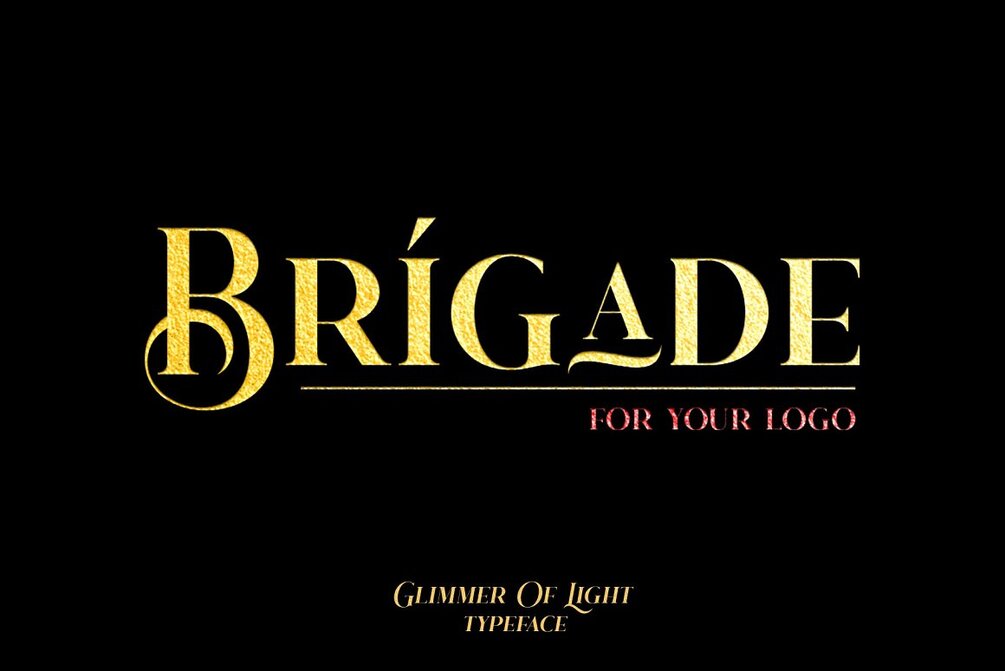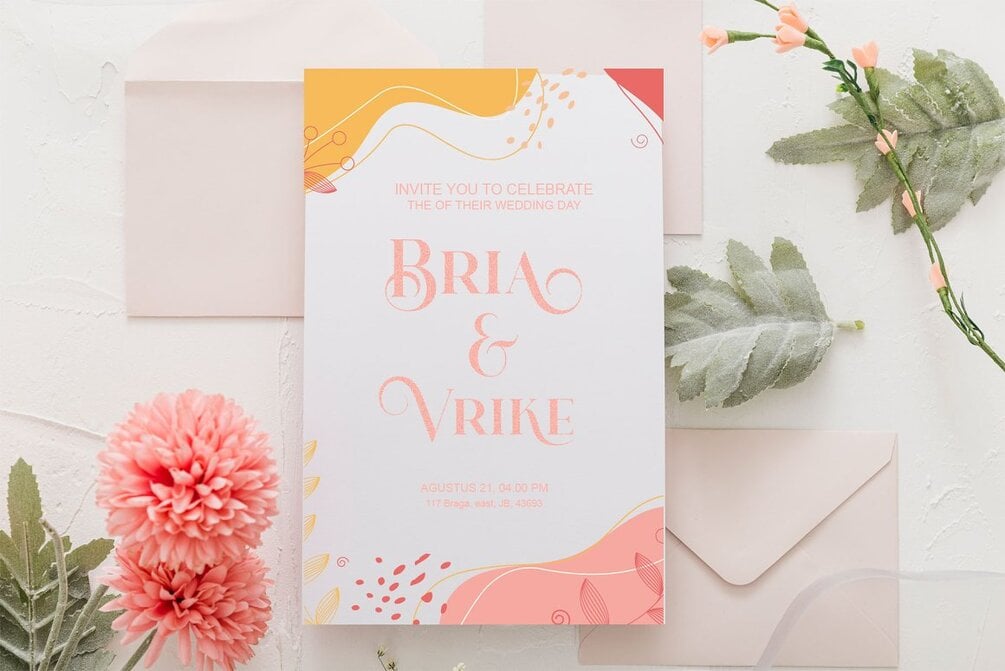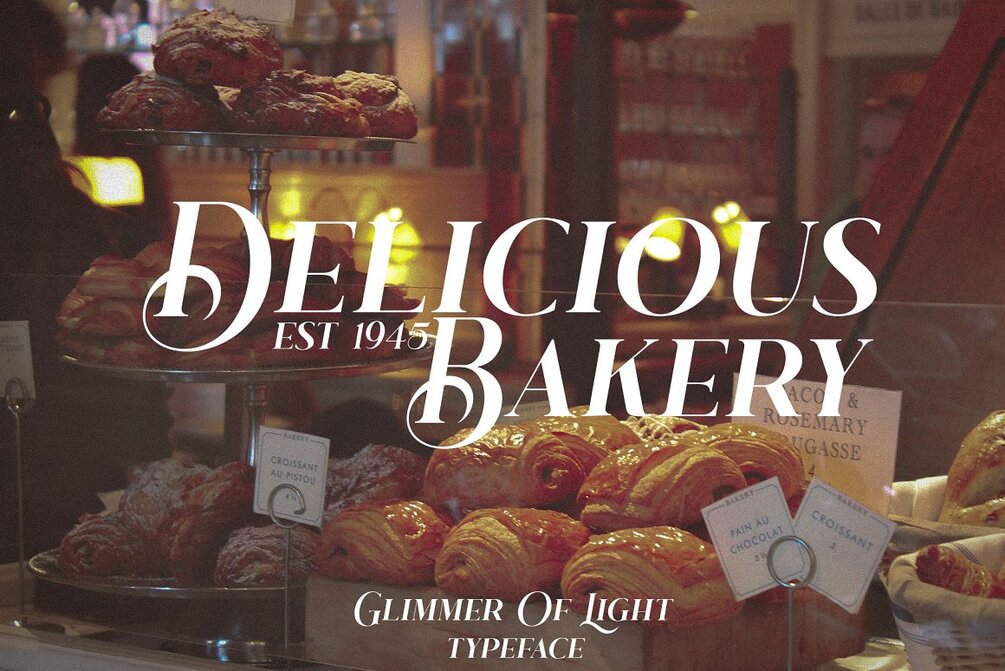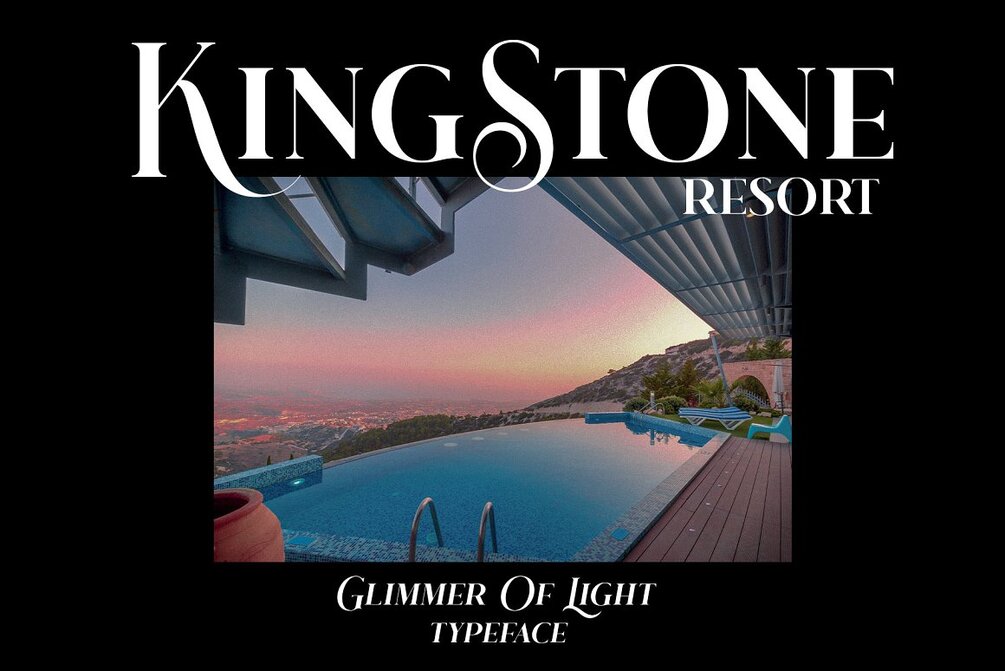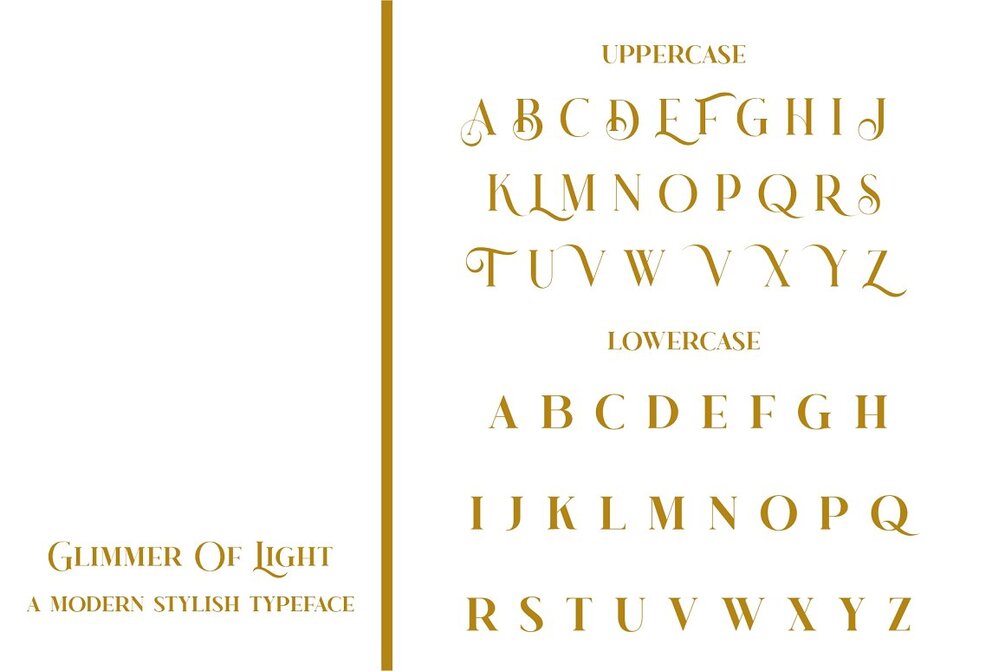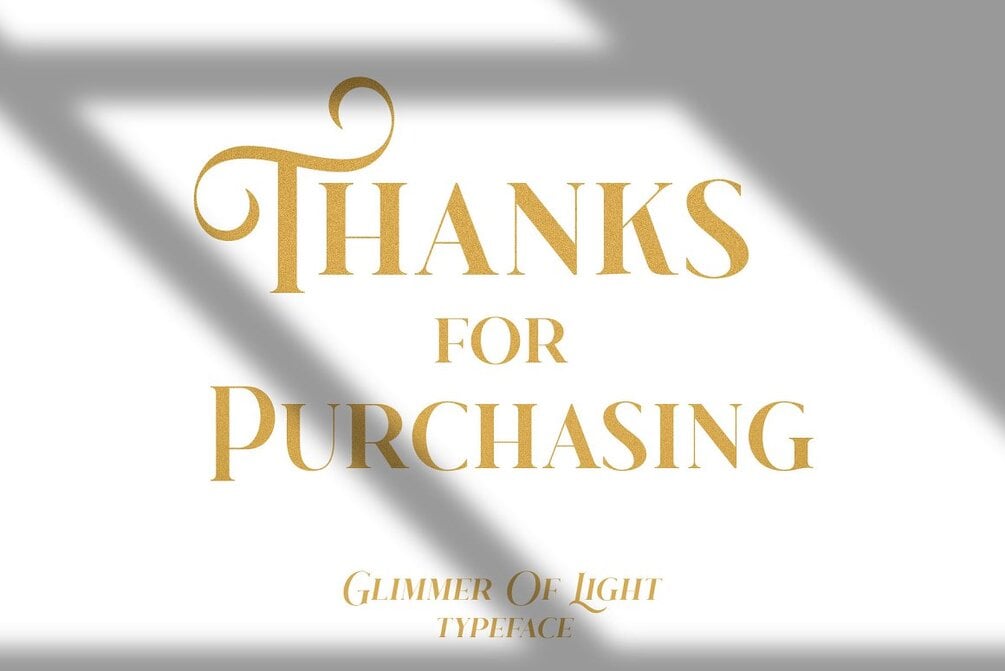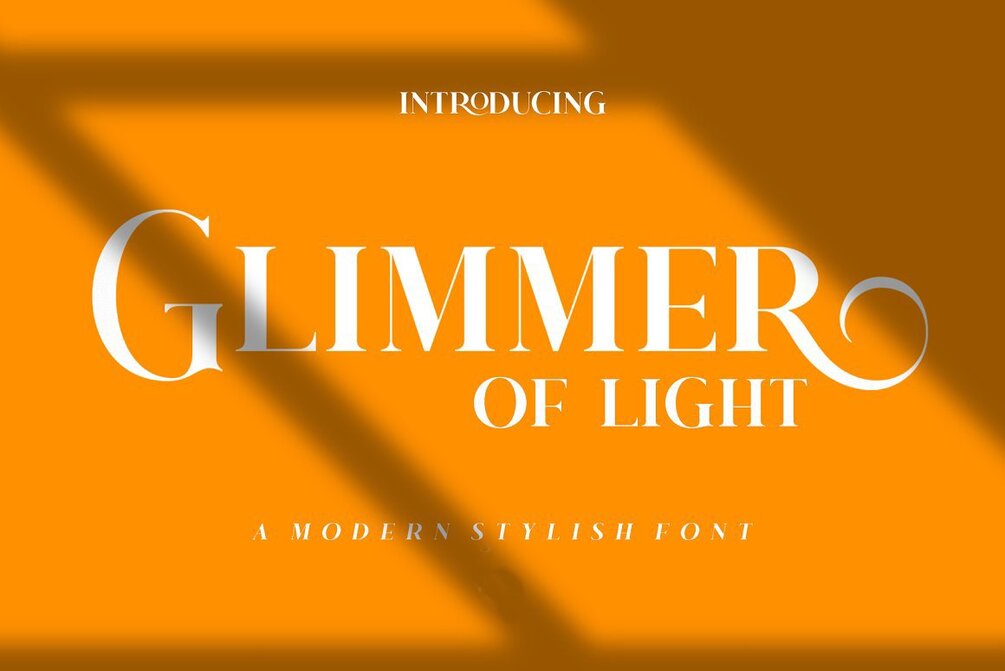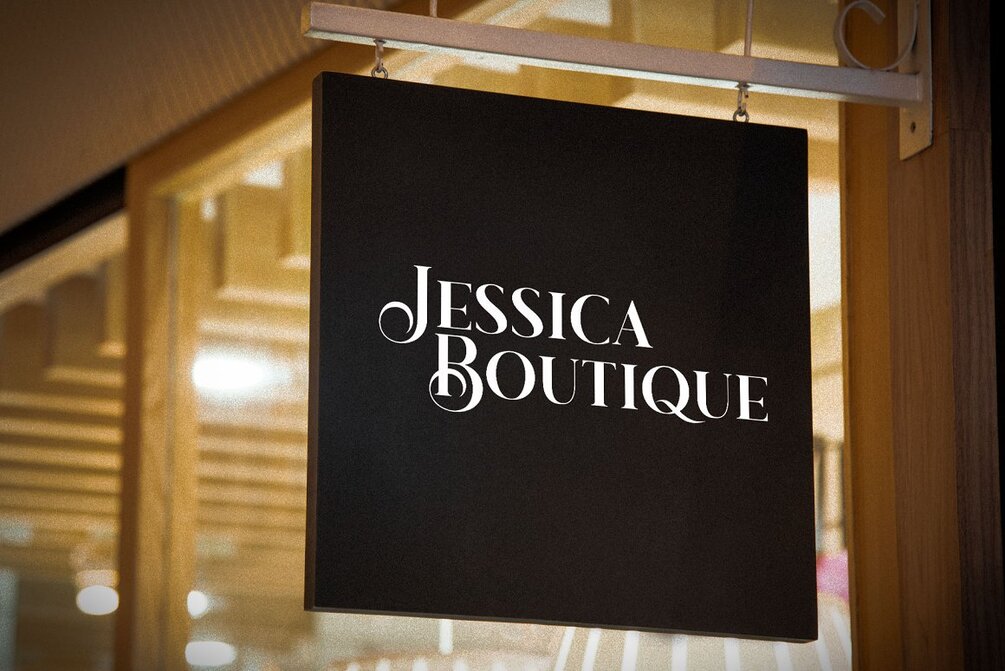
Glimmer Of Light
Hello Everyone, on this occasion we would like to present a font with a unique style, which is vintage decorative style, of course it will be very suitable for those of you who like vintage-style designs, coupled with some stylish alternate glyphs.